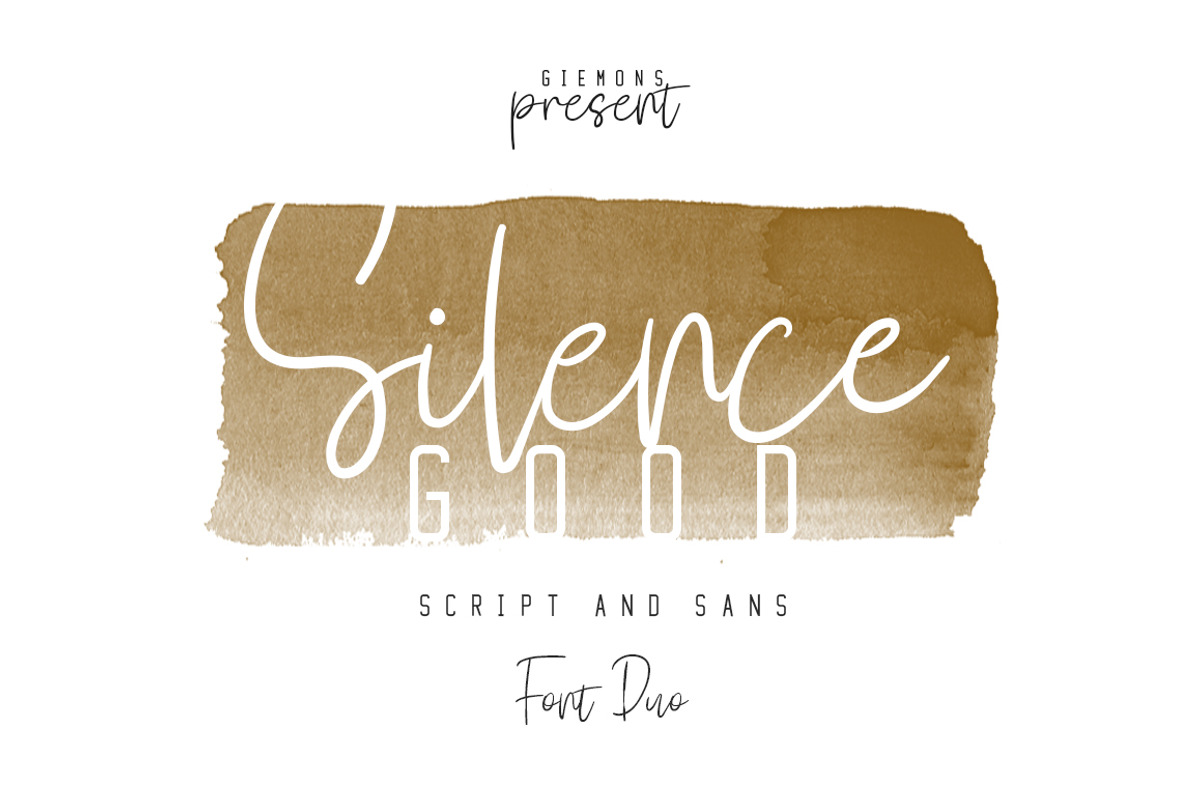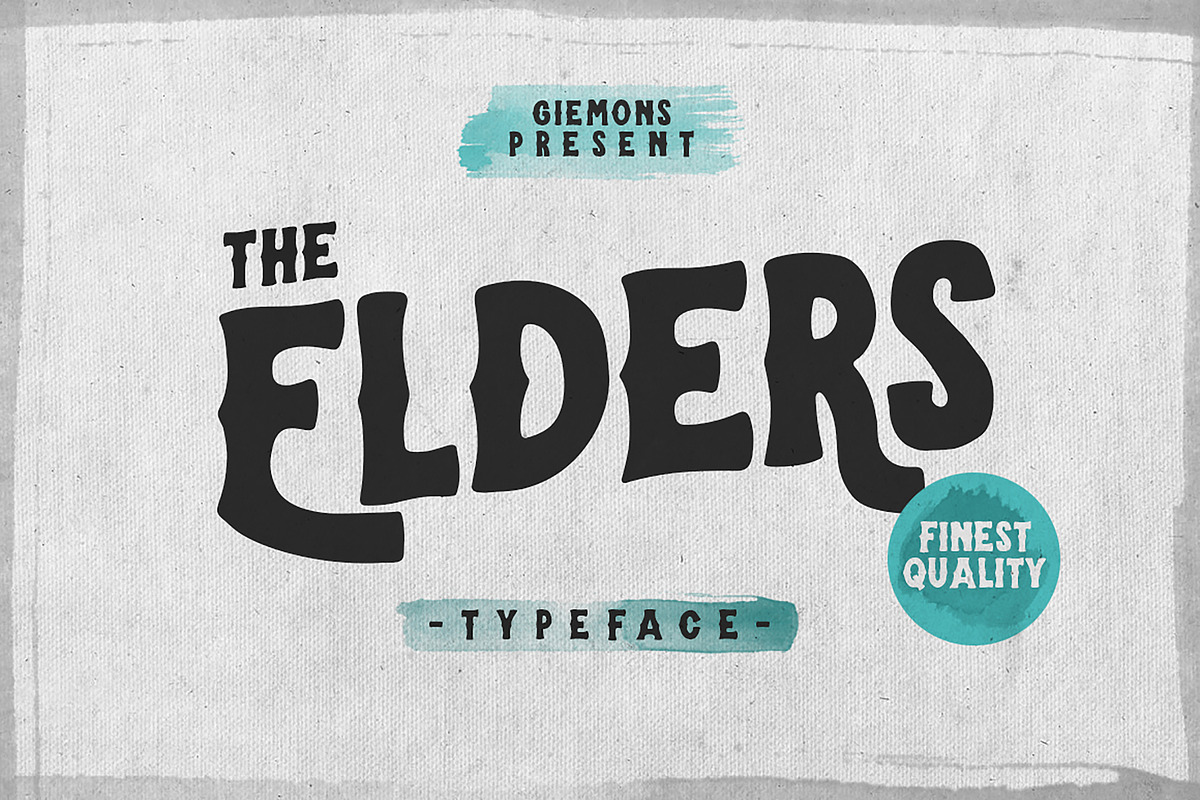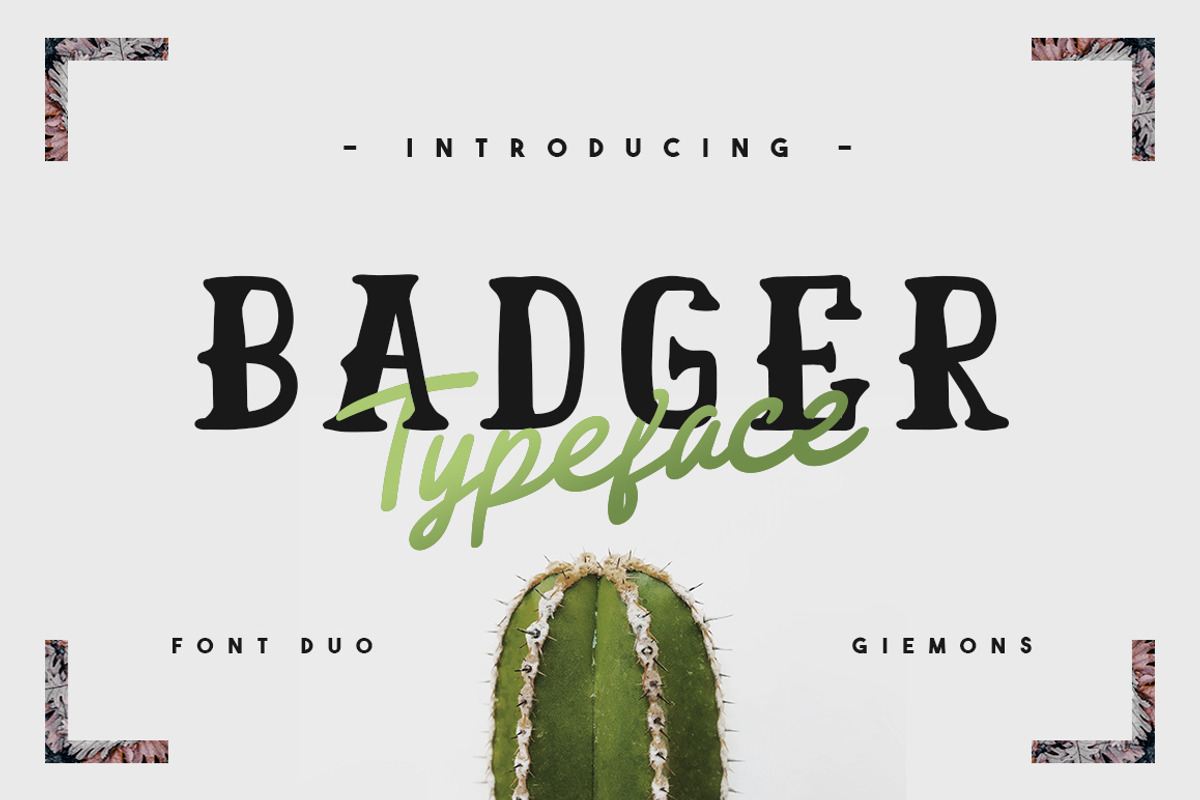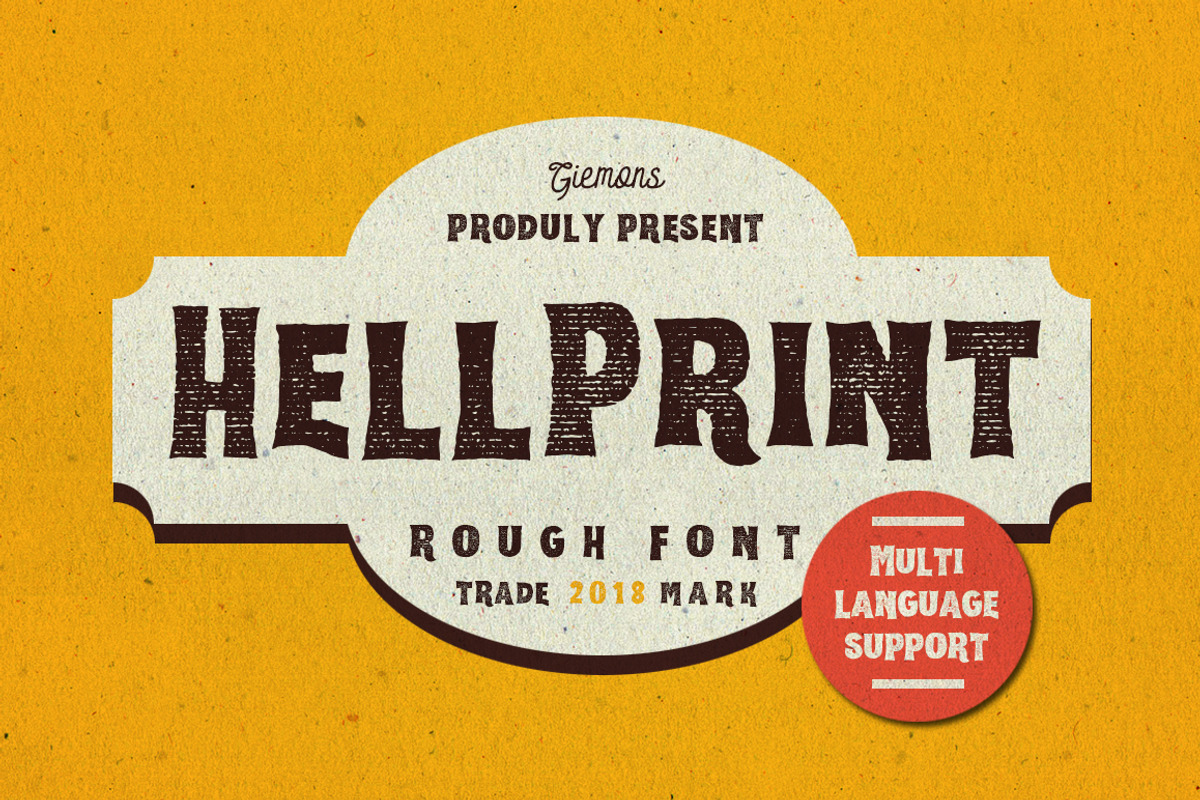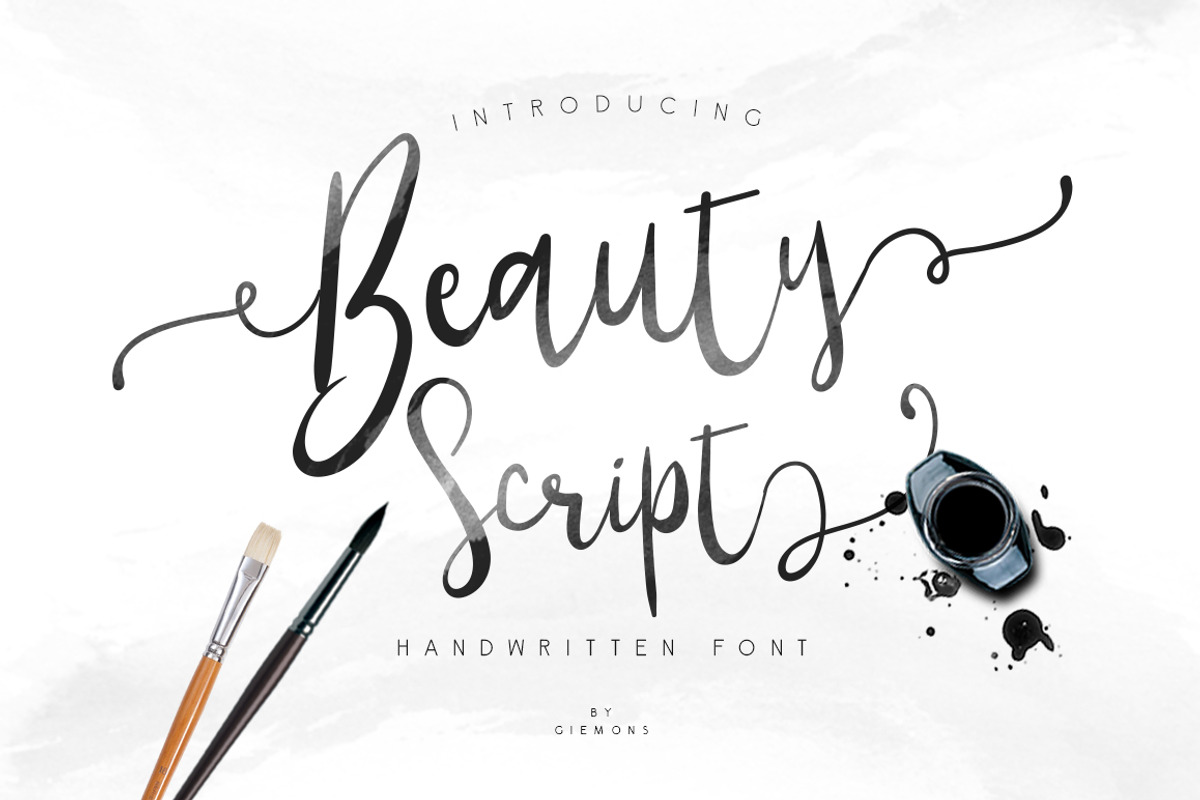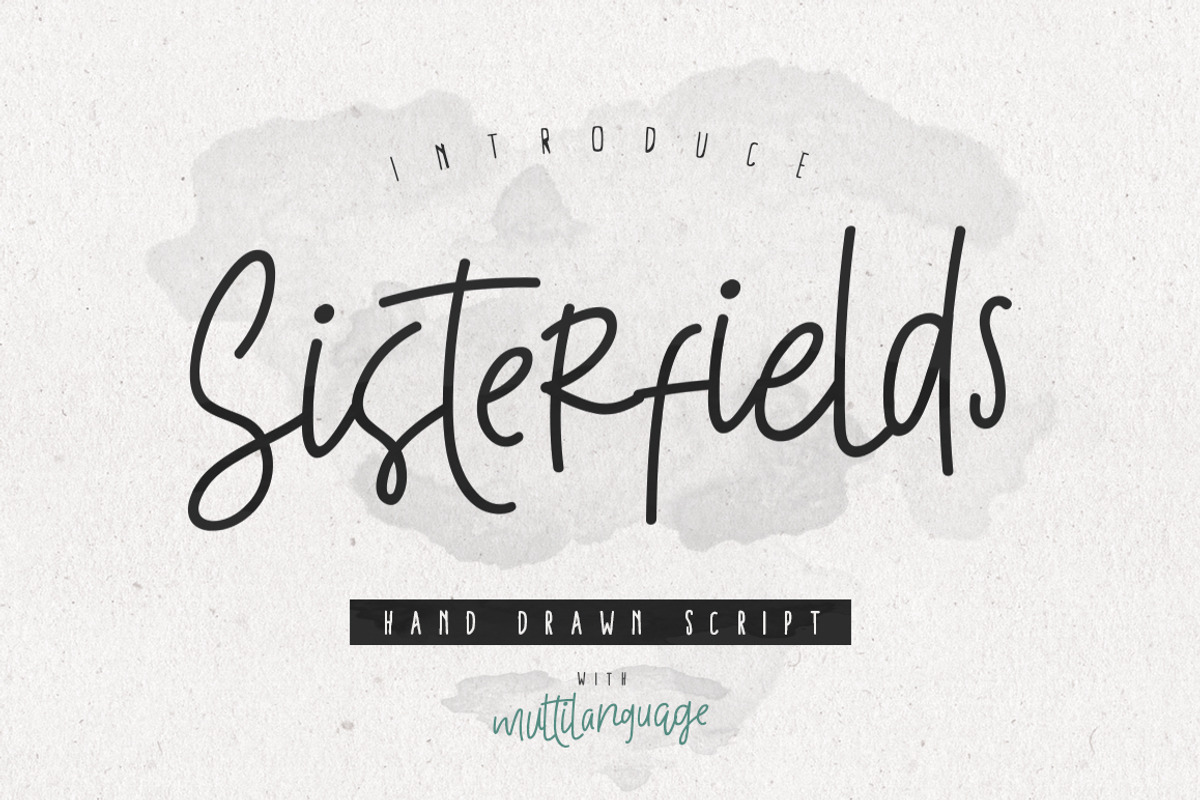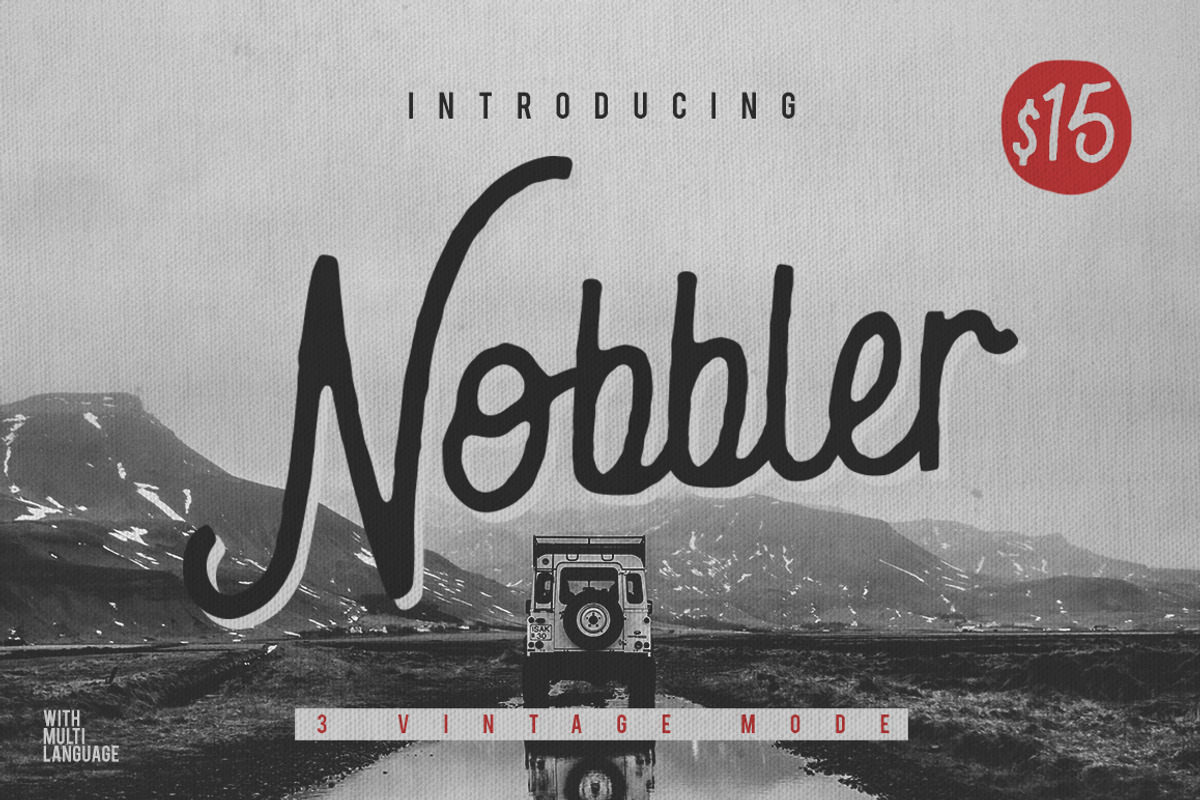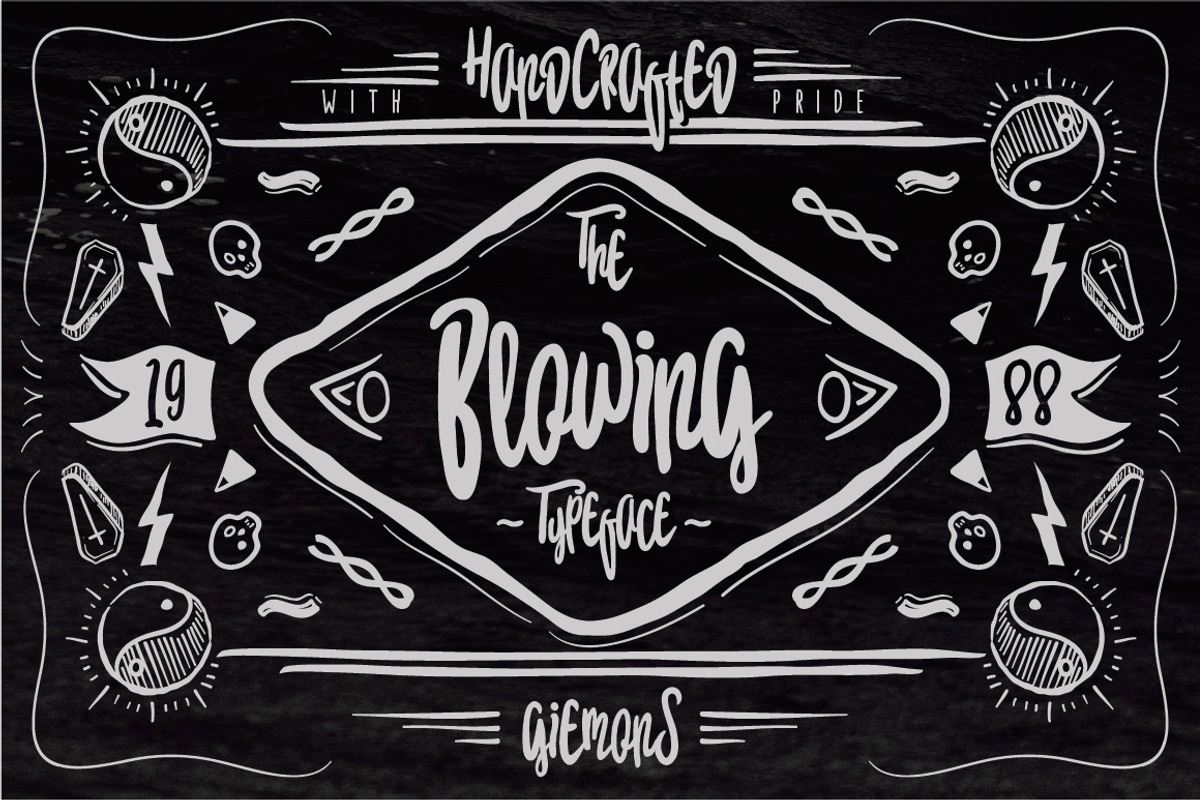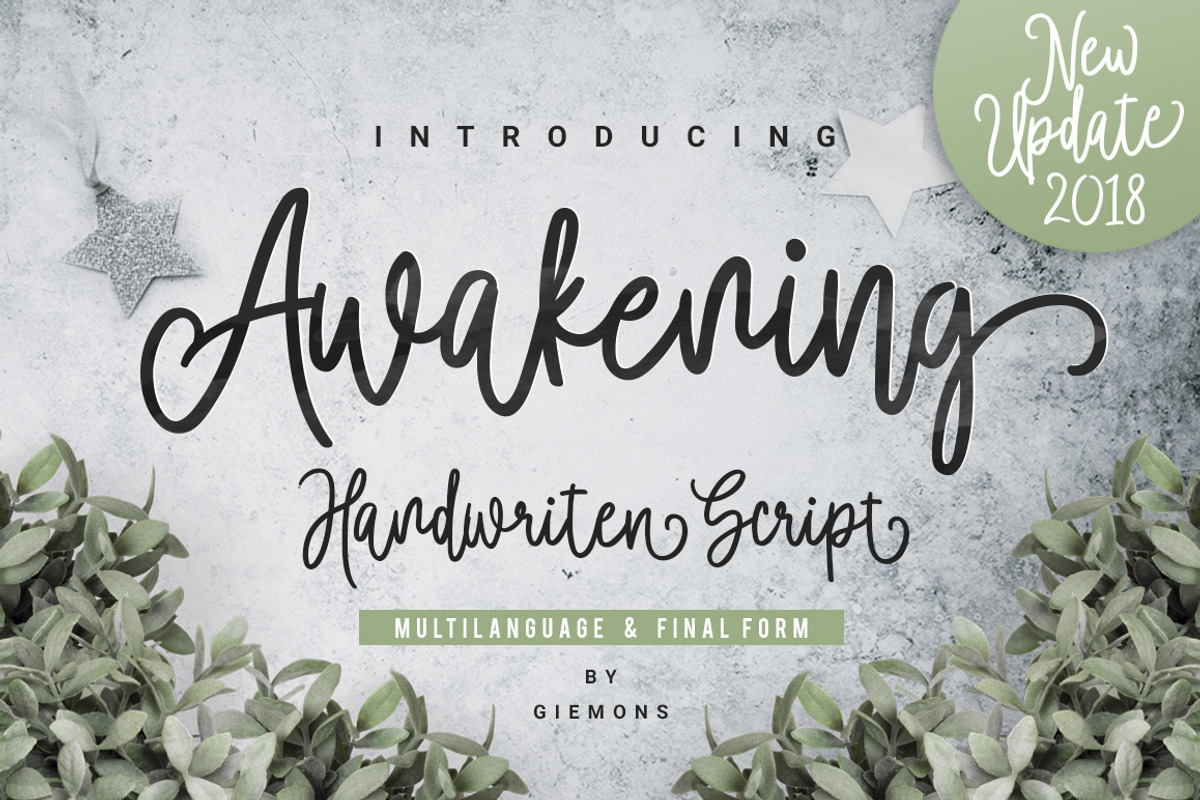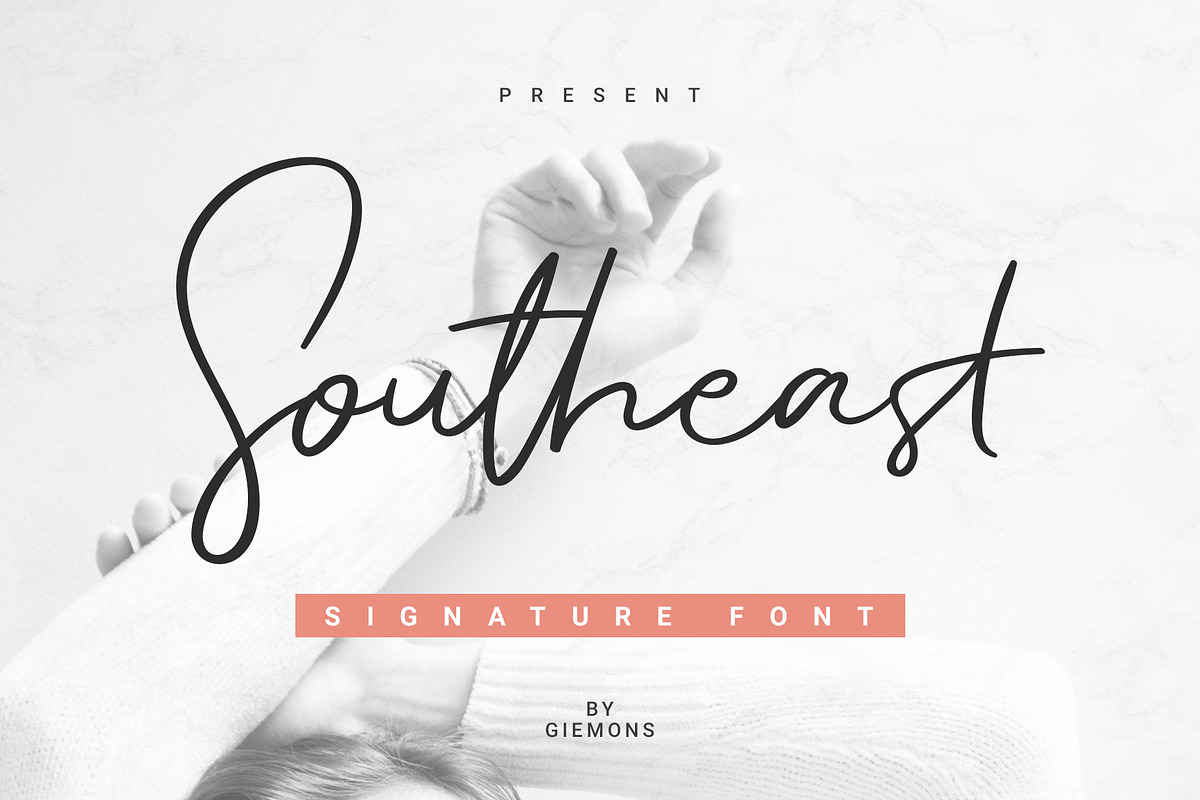
CELEBRATE 2019 BUNDLE - 51 Fonts
HUGE FONT BUNDLE ALL MY PRODUCT
This pack includes all my fonts I've ever created Since 2015 until Now! and you can get Bonus graphic inside some Typeface. All the font Can make it easier to convey the message in your design. Use for awesome wedding card, display, labeling, clothing, movie sceen, poster, movie title, gigs, album covers, logos, and much more.